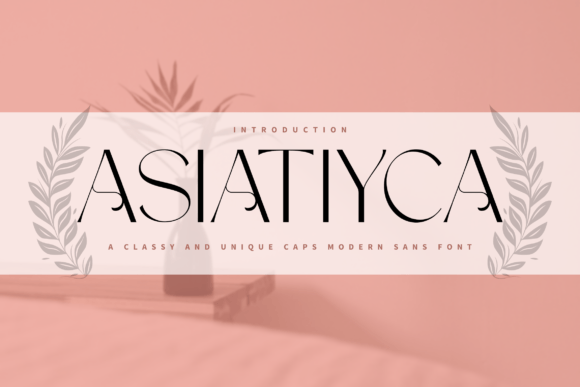
The Asiatiyca Font: A Designer’s New Best Friend
I’ll never forget the time I was working on a project for a client who needed a unique font for their branding materials. I had spent hours scouring the internet for the perfect one, but nothing seemed quite right. That was until I stumbled upon Antonyel, a new sans-serif font that’s been making waves in the design community. In this article, I’ll share my experience with Asiatiyca Font, its features, and how to make the most of it in your designs.
My Experience with Asiatiyca Font
As a designer, I’m always on the lookout for fonts that can help my clients stand out. When I first saw Asiatiyca Font, I was immediately impressed by its clean lines and authentic feel. It’s a versatile font that’s suitable for a wide range of applications, from invitations and greeting cards to branding materials, business cards, quotes, posters, and more!
So, what do I love about Asiatiyca Font? Here are a few things that caught my attention:
- ✨ Clean and modern design: Asiatiyca Font has a fresh and contemporary feel that’s perfect for designs that need to look sleek and professional.
- ✅ Highly legible: The font is easy to read, even at small sizes, making it perfect for body text or captions.
- ✅ Versatile: Asiatiyca Font can be used for a wide range of applications, from digital designs to print materials.
Of course, no font is perfect, and Asiatiyca Font has a few quirks:
- 🤔 Limited language support: Asiatiyca Font may not support all languages, so be sure to check the character set before using it for a project.
- ⚠️ No italic version: Unfortunately, Asiatiyca Font does not come with an italic version, which may limit its use in certain designs.
The Story Behind Asiatiyca Font
Asiatiyca Font was designed with the goal of creating a clean and modern sans-serif font that’s authentic and versatile. The designer wanted to create a font that would be perfect for a wide range of applications, from digital designs to print materials.
| What is Asiatiyca Font? | Asiatiyca Font is a clean and modern sans-serif font that’s perfect for a wide range of applications. |